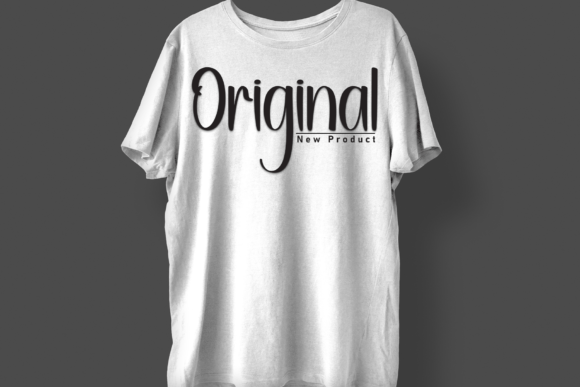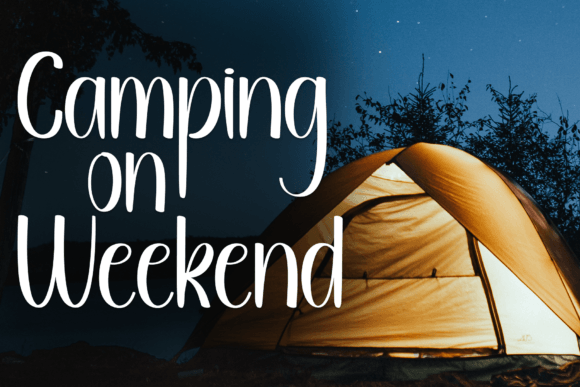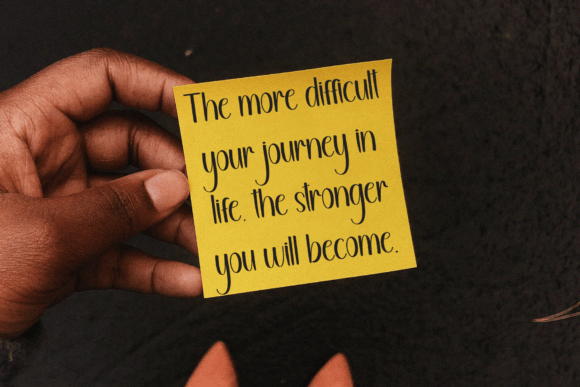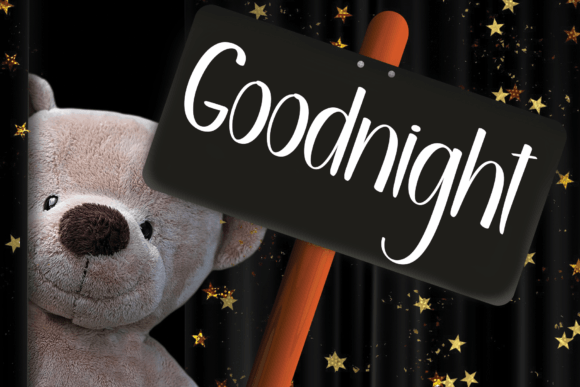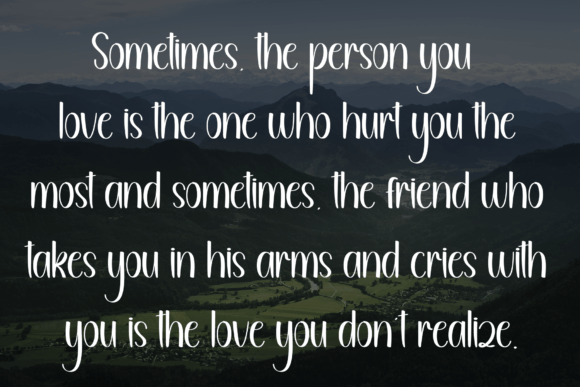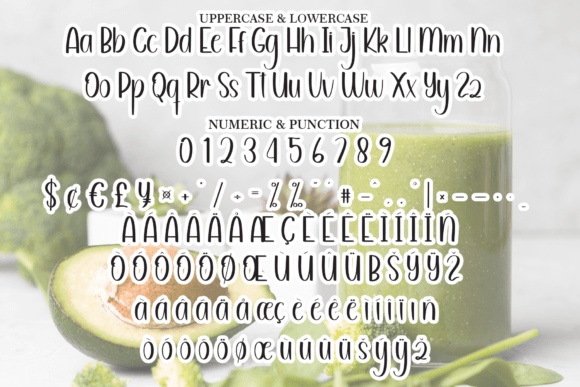
Slurp, Sip, and Savor: Introducing Avocado Smoothie Font
Have you ever been inspired by a refreshing drink on a sunny day? Maybe it was a cool glass of lemonade or a vibrant fruit smoothie that sparked your creativity. For designers, a great font can be just as refreshing. It’s a moment of clarity, a burst of inspiration that sets the tone for an entire project. And that’s exactly what we’re excited to share with you today – a font that captures the essence of a delicious treat.
Meet Avocado Smoothie Font, a delightful script typeface that embodies the natural charm of a creamy avocado smoothie. This playful font is perfect for adding a touch of whimsy to food packaging, recipe cards, and playful branding. With its organic strokes and curves, Avocado Smoothie Font brings a fun and refreshing vibe to your designs.
Whether you’re a foodie, a designer, or simply a lover of all things creative, Avocado Smoothie Font is sure to inspire your next project. So why settle for a bland font when you can add a dash of fun and personality to your work? Get ready to sip, slurp, and savor the delicious design possibilities with Avocado Smoothie Font!
Avocado Smoothie Font Key Features
- Unique Characteristics: This font features a unique blend of modern and organic elements, with intricate details and textures that evoke a sense of natural elegance.
- Font Weight and Style: The font offers 4 different font weights (Light, Regular, Bold, and Black) and 2 font styles (Regular and Italic), providing versatility for various design applications.
Review of Avocado Smoothie Font
Overall, I’d say the Avocado Smoothie Font is a fun, quirky addition to any design project. The designer’s use of rounded shapes and soft curves creates a friendly, approachable feel that’s perfect for brands looking to appeal to a younger audience.
What Works Well: ✨
- The font’s uniqueness sets it apart from more generic sans-serif fonts.
- The subtle texture adds a touch of personality and visual interest.
- The font is highly legible, even at smaller sizes.
- The font may not be suitable for formal or professional applications.
- The rounded shapes can make it difficult to read at very small sizes.
While the Avocado Smoothie Font may not be for everyone, it’s a great choice for brands looking to inject some personality and whimsy into their design. With its unique look and high legibility, it’s definitely worth considering for your next project.
To get the most out of the Avocado Smoothie Font, try using it in combination with bright and pastel colors to create a fun and playful design. You can also experiment with different font sizes and styles to add visual interest to your design.
The Avocado Smoothie Font is perfect for:
- Blog posts and articles about food, health, and wellness.
- Social media graphics and advertisements for restaurants and food brands.
- Menu boards and labels for cafes and restaurants.